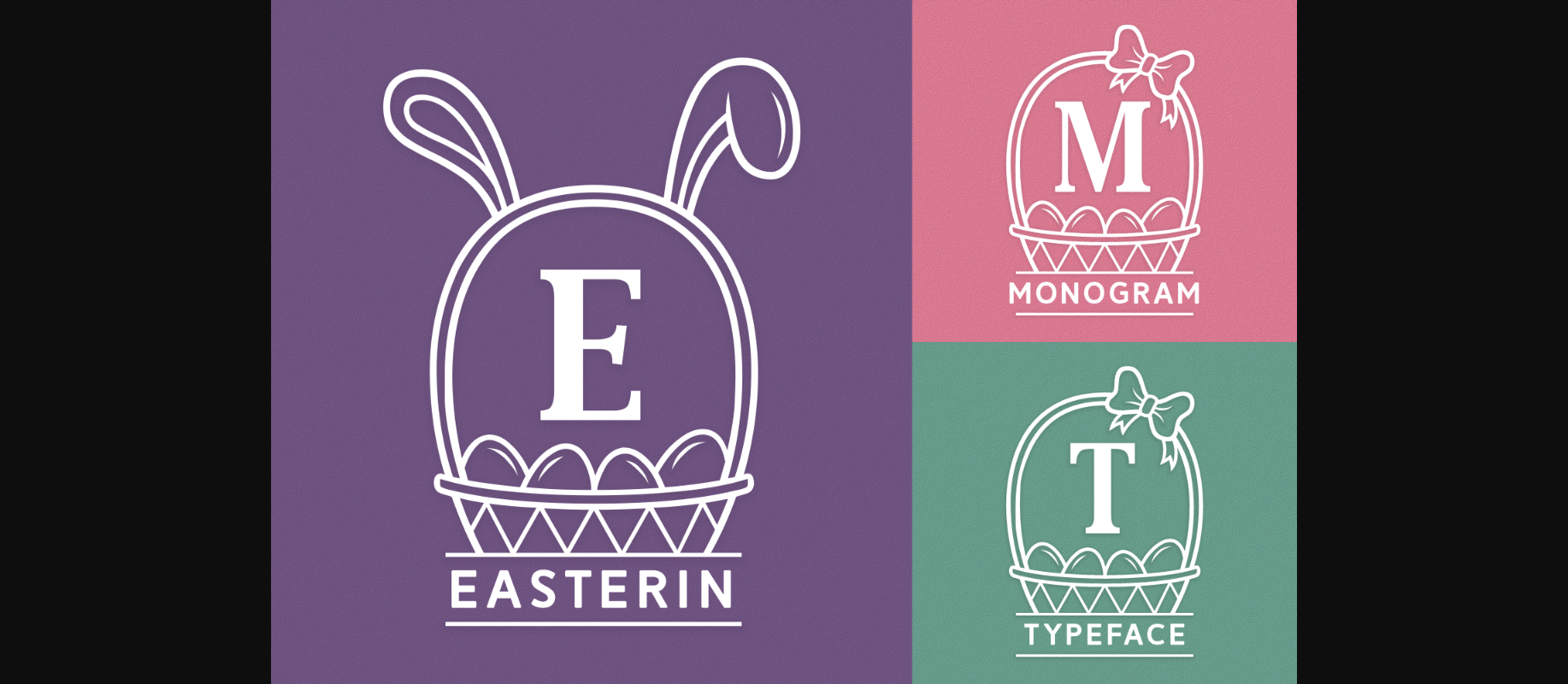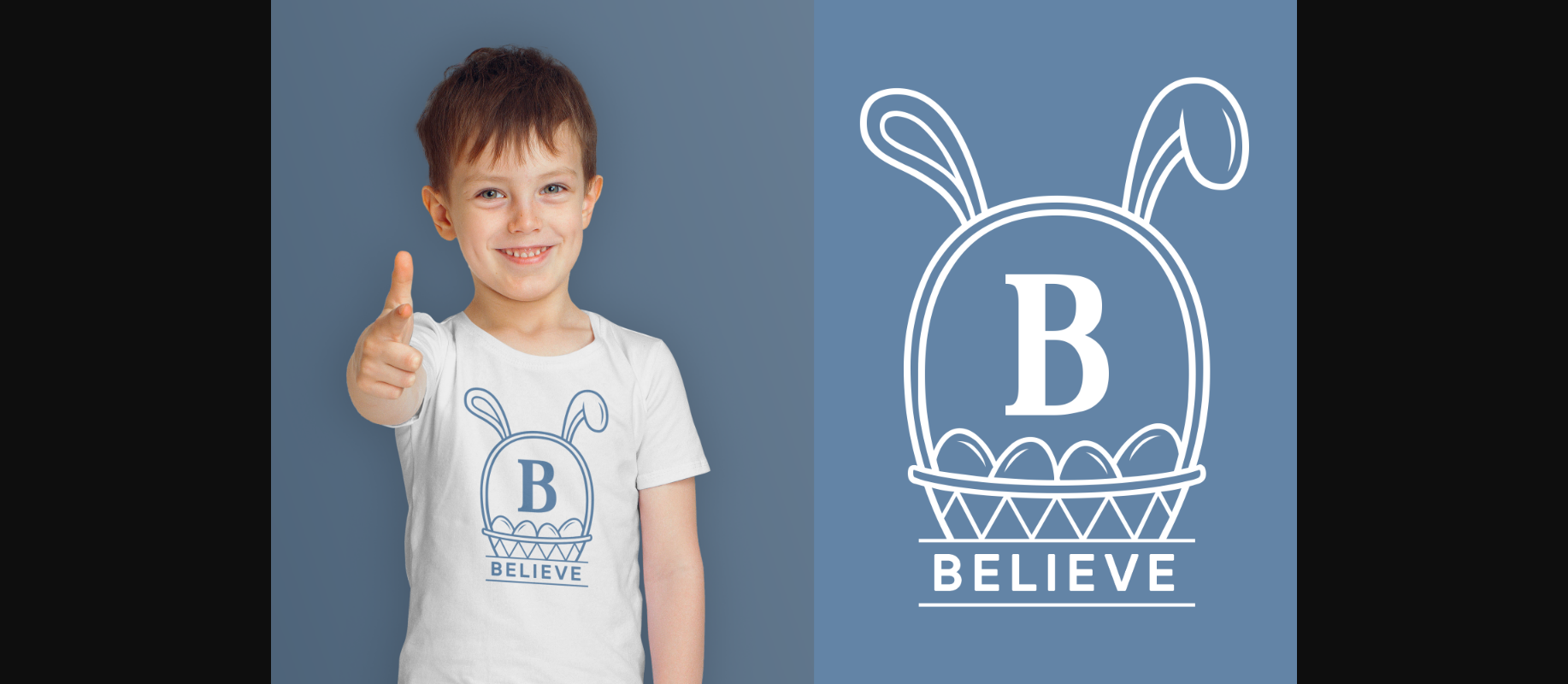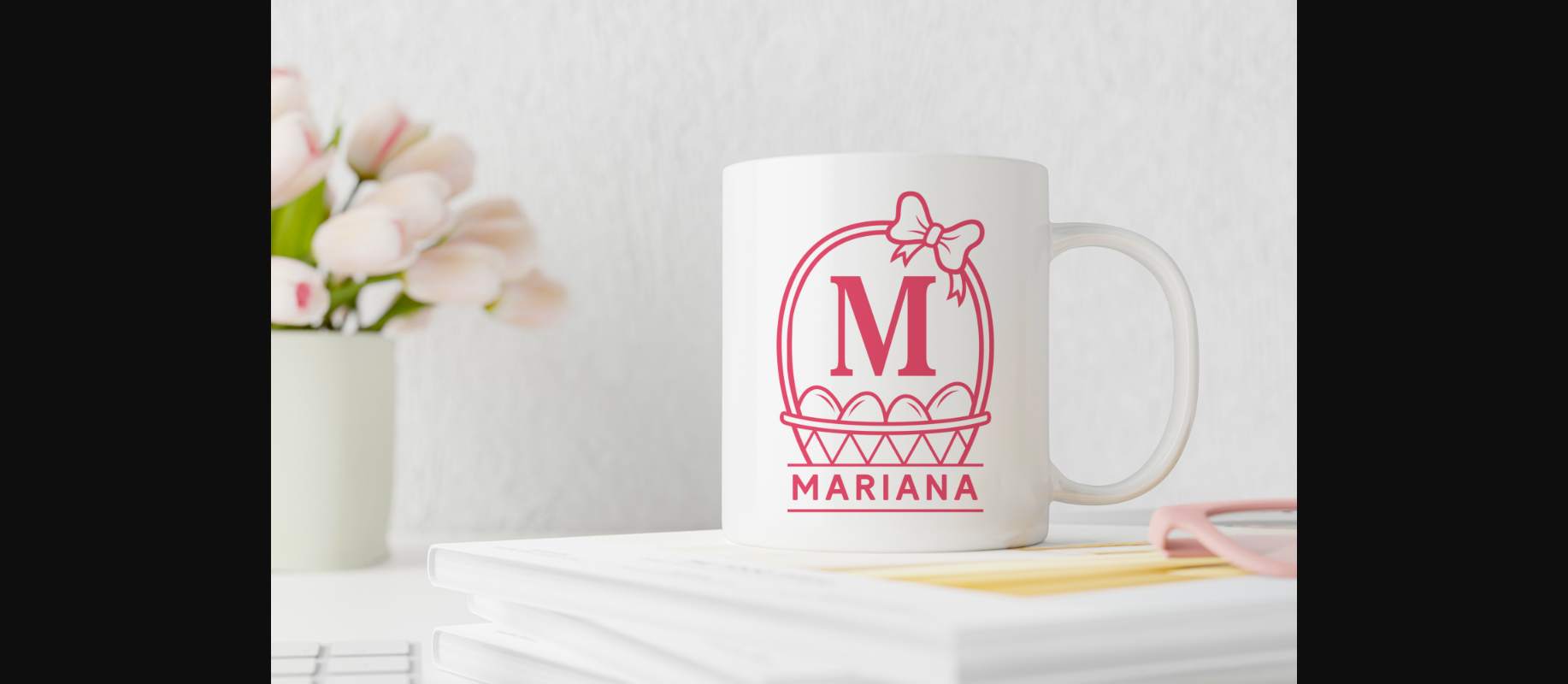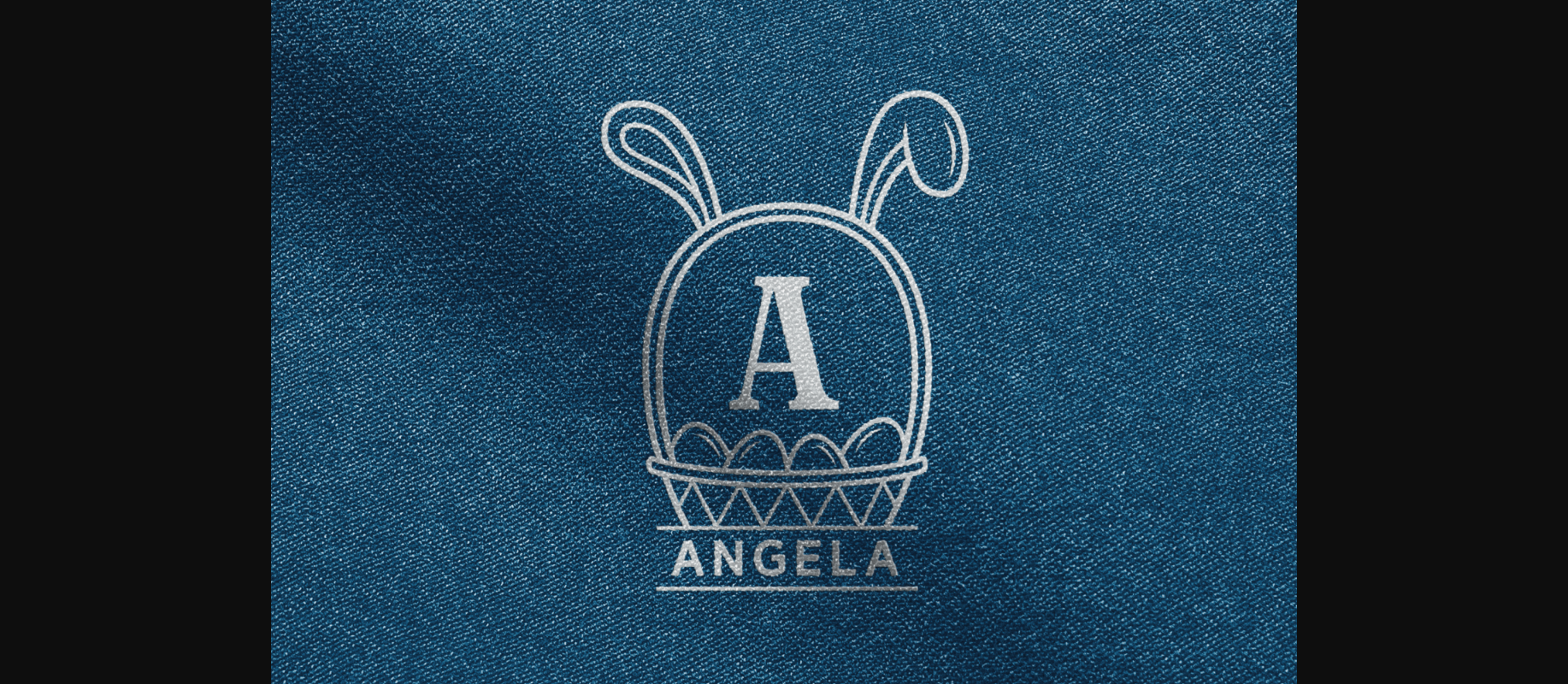
About Easterin Font
Easterin is a decorative font, perfect for all your Easter-themed designs! This adorable font features letters inside beautifully designed Easter eggs, each one elegantly decorated with cute patterns and vibrant colors. Use it to add a touch of festive cheer to your projects!